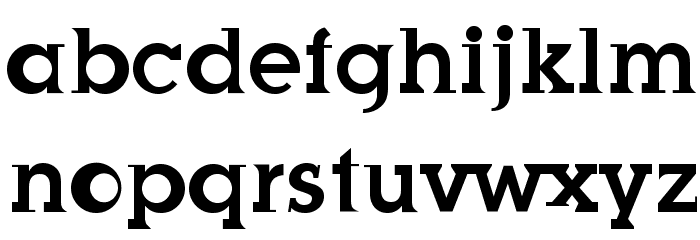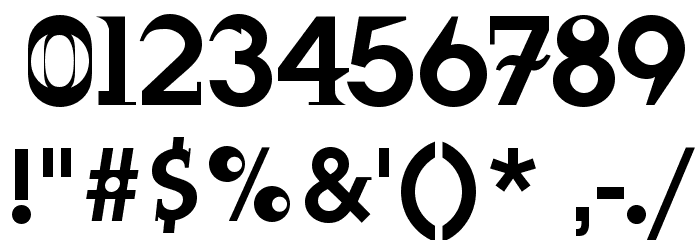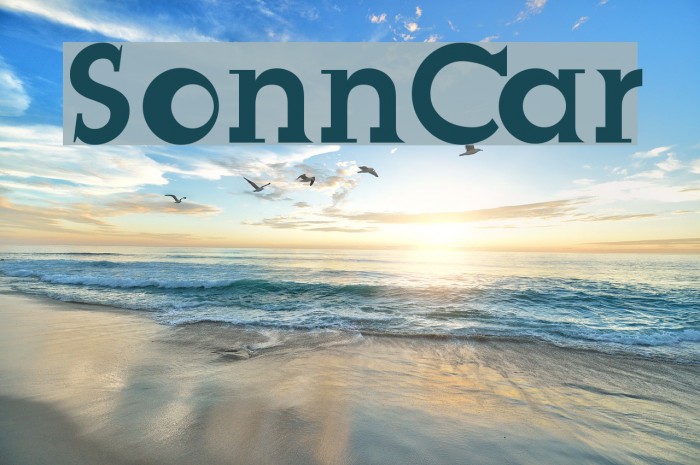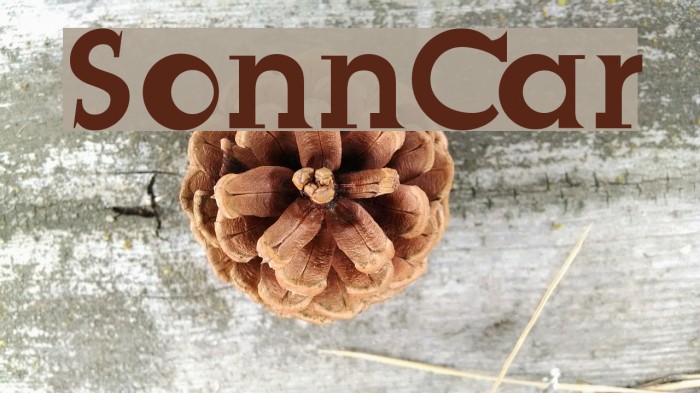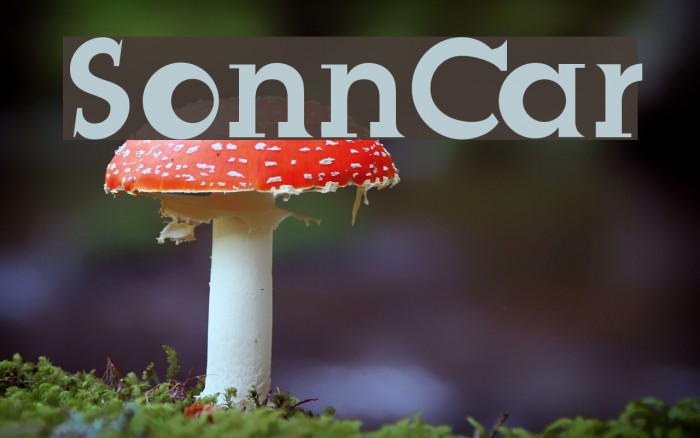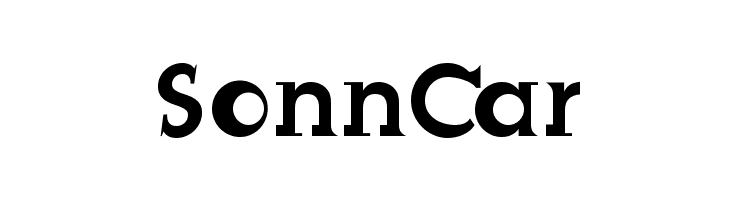
SonnCar Font
This font features a bold and dynamic design with a strong presence. The uppercase letters exhibit a geometric style with sharp angles and clean lines, giving them a modern and assertive appearance. The lowercase letters maintain a consistent style, with rounded edges that add a touch of softness to the overall look. The numerals are distinct and easy to read, with a slightly condensed form that complements the alphabetic characters. Special characters are well-integrated, maintaining the font's cohesive design. The font's boldness and clarity make it suitable for impactful headlines and branding projects.
A bold, geometric font with sharp angles and clean lines, ideal for modern designs.